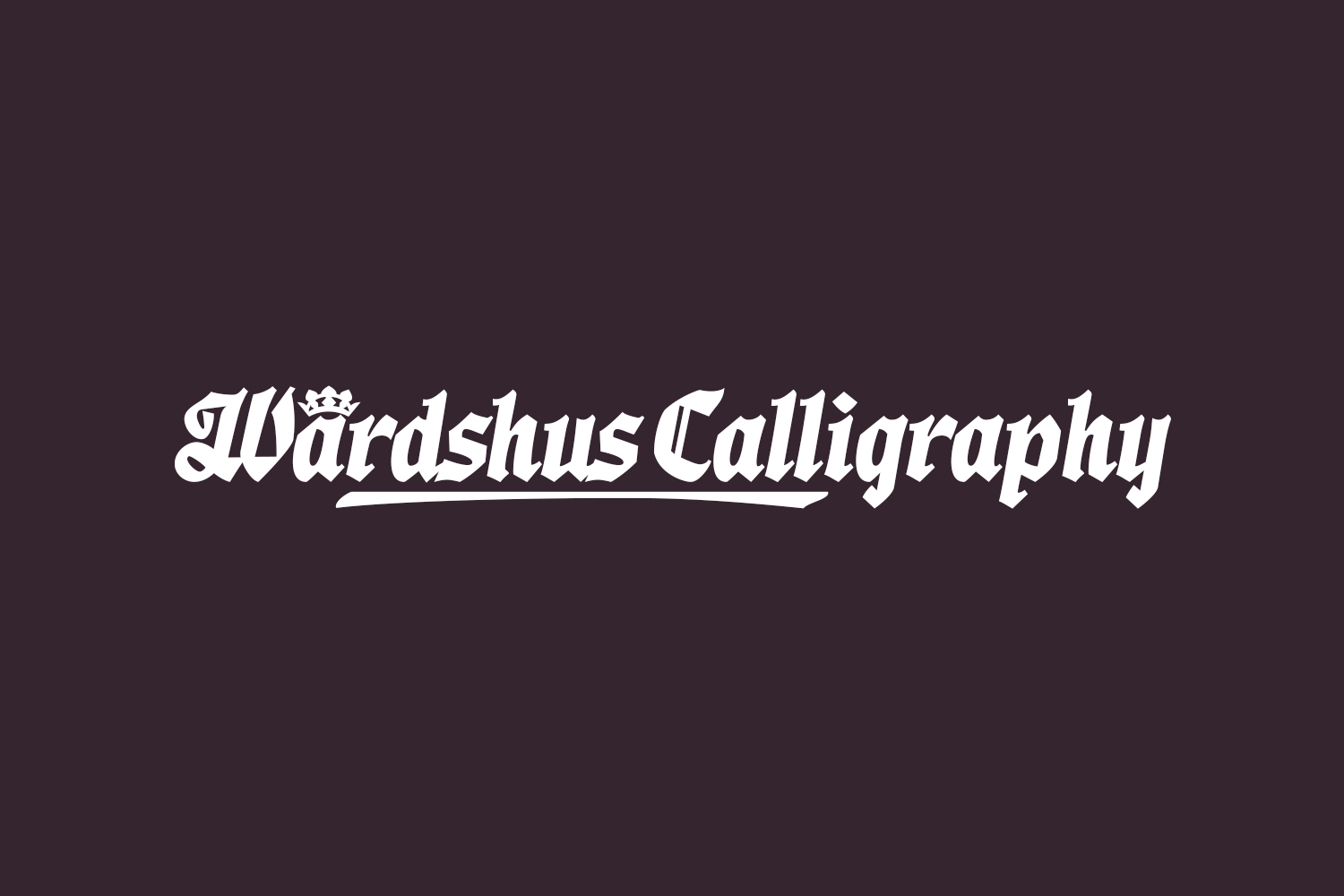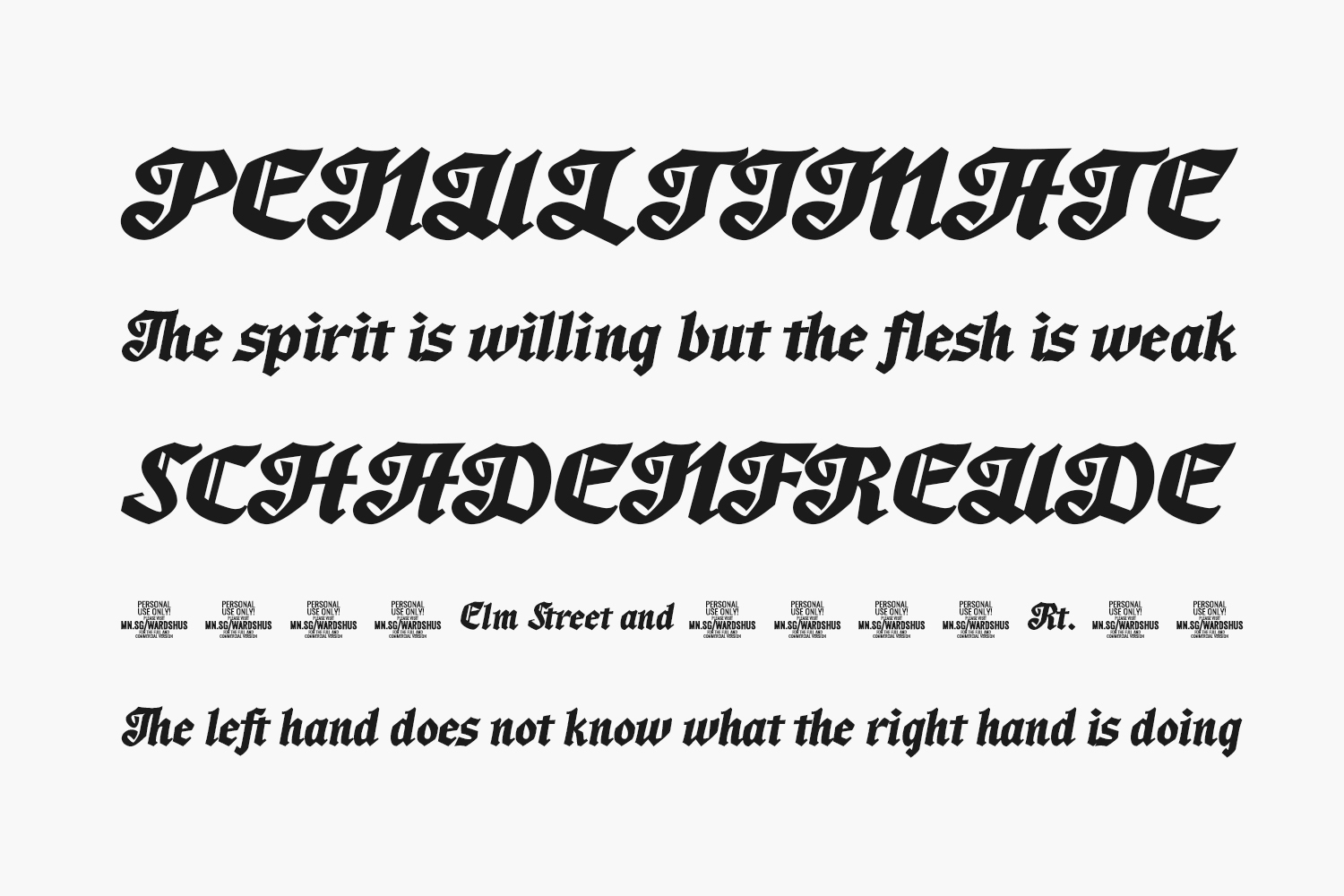
Unleash your inner rebel with the Gothic Modern Wardshus Calligraphy Free Font – a powerful and edgy design resource that pushes the boundaries of traditional typography. This font features intricate calligraphic strokes with a modern gothic twist, creating a bold and daring aesthetic that commands attention and inspires creativity. Perfect for designing edgy branding, event invitations, or unique art pieces, this font is a must-have for anyone looking to make a bold statement with their typography. Wardshus Calligraphy Free Font is a demo and free for personal use only. Please purchase the full version for commercial use.